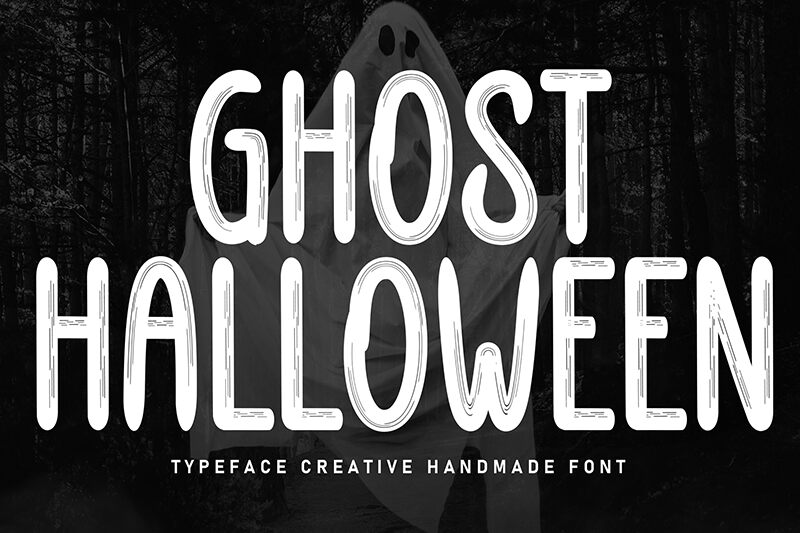
Ghost Halloween
Ghost Halloween font by Scratchones is a condensed handwritten display font with a spooky appearance. Designed with gory strips, this thematic font brings horror and creepiness to your projects. Characters are wide, all uppercase, and the texture feels more grainy or scratched than it being fully smooth.
Get creative in this free decorative font and use it for children’s books, comics, games, apparel designs, YouTube content thumbnails or intros. Websites and mobile app designs can also benefit from its beauty while making sure every letter is readable and understandable by everyone.